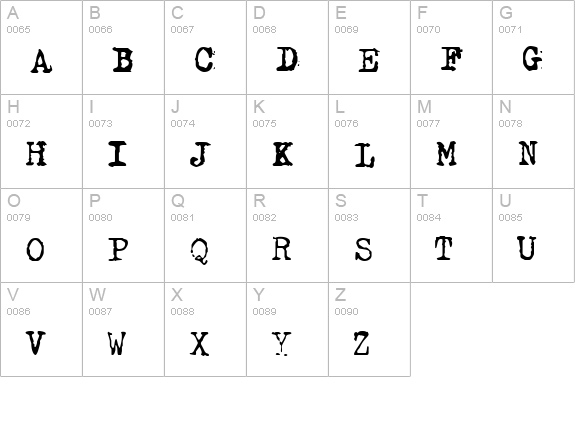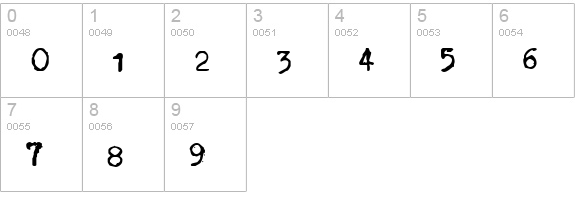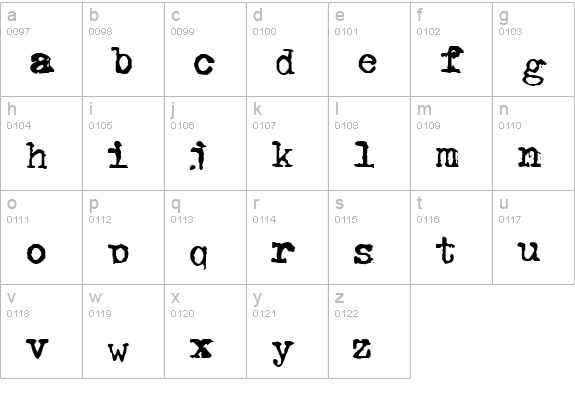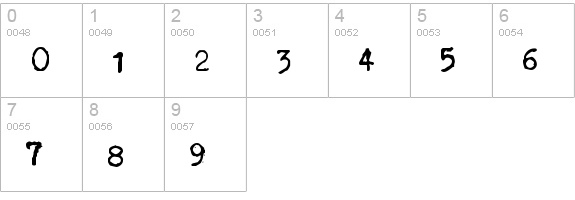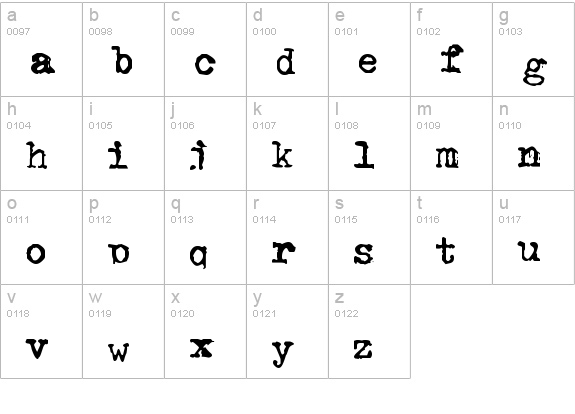
GF Halda Smashed Font Details
GF Halda Smashed font is a unique and eye-catching display typeface that exudes a sense of boldness and creativity. Its smashed design gives it a distinct edge, making it perfect for attention-grabbing headlines, posters, and branding materials. The font is both modern and edgy, adding a touch of personality to any design project. What sets GF Halda Smashed font apart is that it is not only visually striking but also completely free to download. You can easily access this versatile typeface at FontsMarket.com, where you can unleash your creativity without any cost constraints. Whether you're a designer looking to add a fresh twist to your projects or a creative individual searching for a standout font, GF Halda Smashed font is the perfect choice. Download it today and let your imagination run wild with this exciting and dynamic typeface.